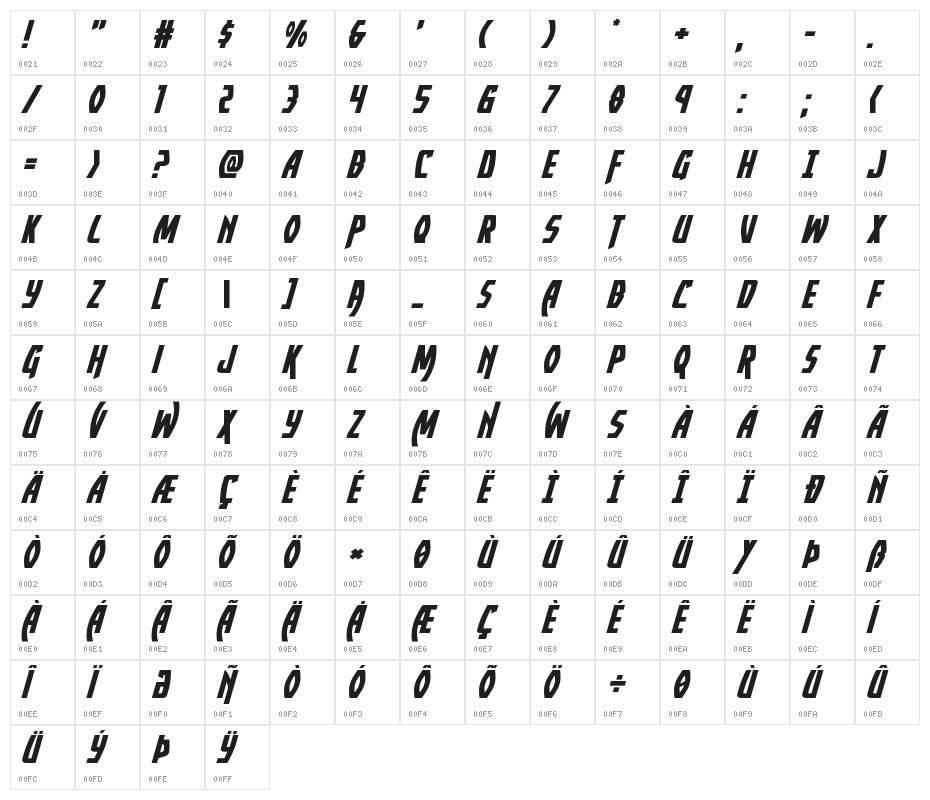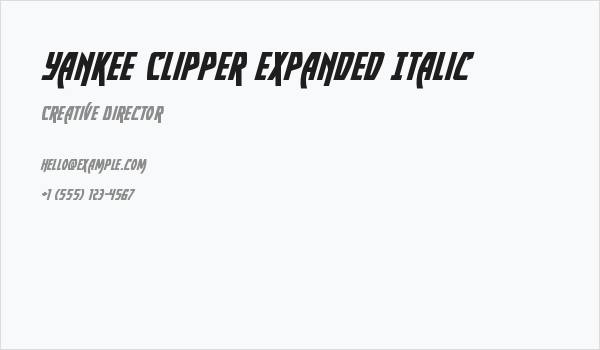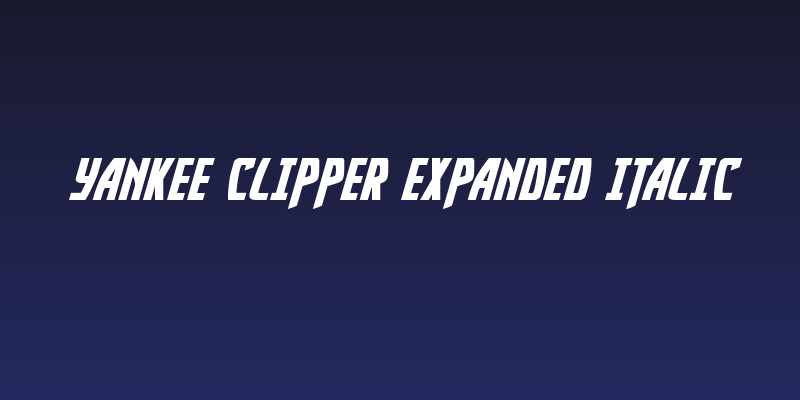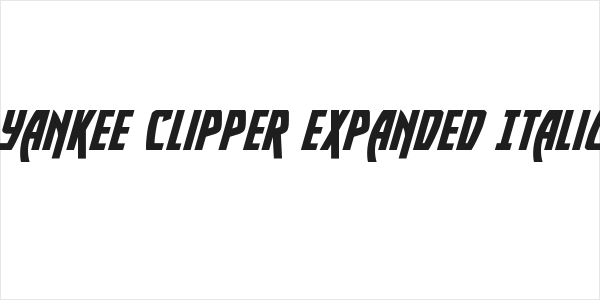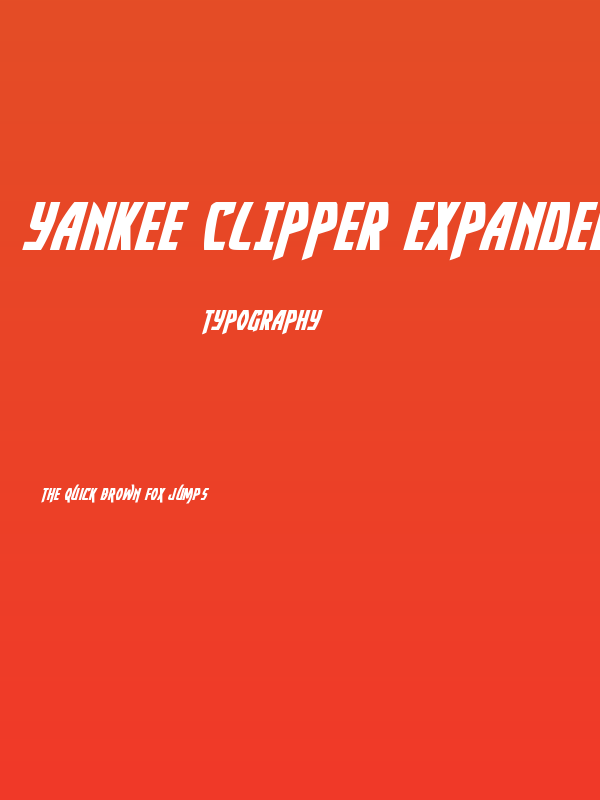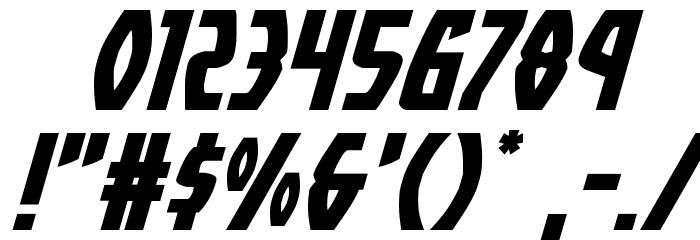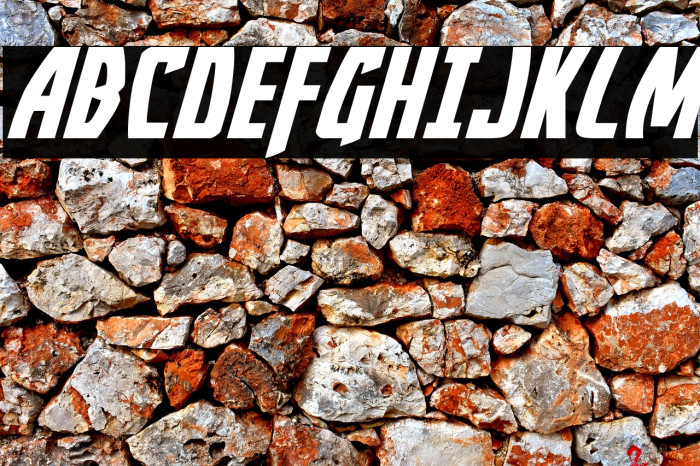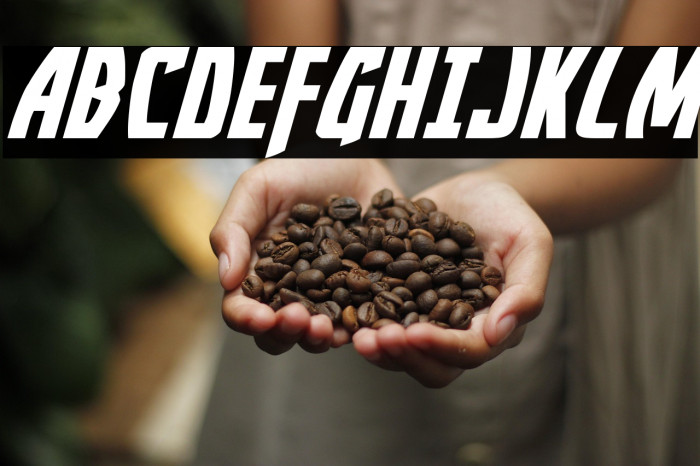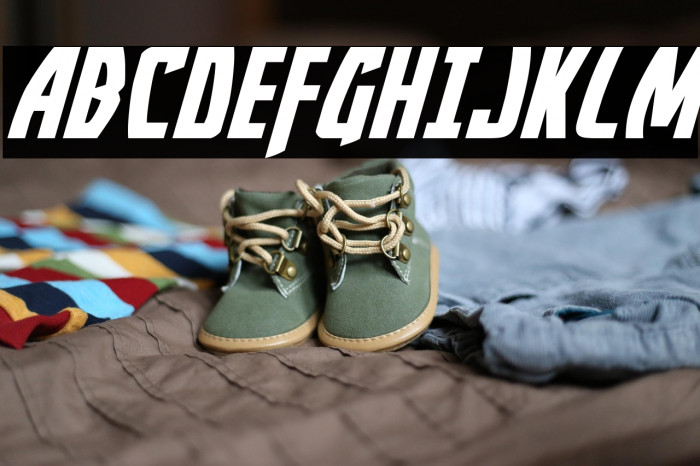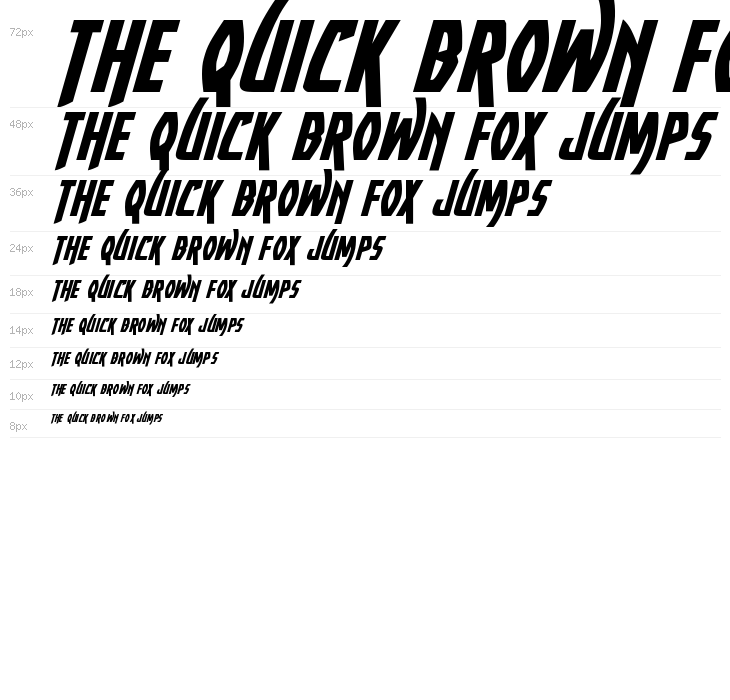
Yankee Clipper Expanded Italic Font
This font features a bold and dynamic style with an italic slant, giving it a sense of movement and energy. The characters are expanded, providing a wide and impactful appearance. The sharp angles and clean lines contribute to a modern and assertive look, making it suitable for attention-grabbing designs. The uppercase and lowercase letters maintain a consistent style, while the numbers and special characters complement the overall aesthetic. This font is ideal for projects that require a strong visual presence.
| Proposed Projects | Ideal for sports branding, dynamic posters, and bold headlines. |